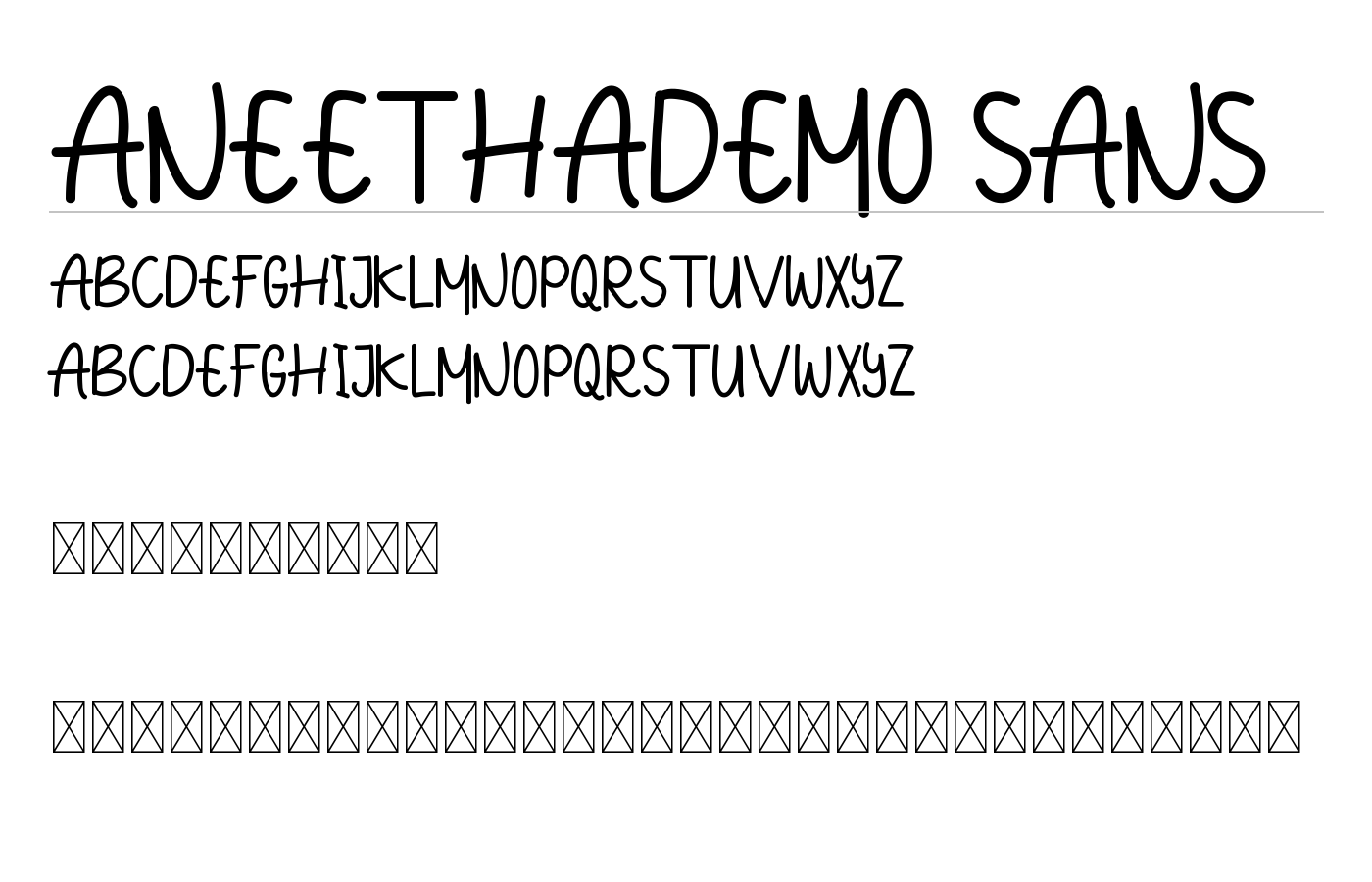
Aneethademo Sans is a playful handwritten sans serif font featuring a light weight and tall, narrow letterforms with a casual, friendly vibe. Its smooth, rounded strokes and quirky shapes make it ideal for informal designs, creative projects, and children’s branding where an approachable and fun look is desired. This font works well in headlines, logos, and packaging that aim to convey warmth and personality.
Aneethademo Font
About Aneethademo Font
| Font family | Aneethademo Font |
| Designer | Saila nurissalma |